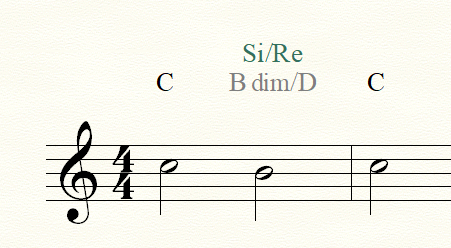
I am working on scores in which I use chords in Italian mode (a modern solfeggio Do, Re, Mi, Fa, Sol, La, Si) and for this I select the alternative font MusicChordSpanish which allows me to have the Chords in style I need, it's an Arial style modified font.
The problem is that when I insert Bb/D (which translated must be Sib/Re) the characters are superimposed as in the screenshot that I attach.
Are there any updated versions of the font?
For several years I have been asking the team to include this default chord style in Finale's choices. The software provides the Solfeggio mode but it is unusual and not the one used by many users who needs the modern solfeggio chords used in many scores and dedicated song books.
The modern use is Do, Re, Mi, Fa, Sol (not So), La, Si (not Ti).
I want submit you that Dorico and Sibelius allows this in the preferences.
If Finale include this mode in default choices we could choose also different fonts than Arial or TimesNewRoman or Jazz as offered for English language.
In the meantime, I submit this help request for corrupted font and renew the style request.
In the meantime, you should be able to create the chord (for playback) and hide it. Then use an expression in the appropriate font to show what you want. (But still, contact Finale Support to show them what you need.)
You mention the font MusicChordsSpanish.
You have not tried the FC font?
At least for me the characters are not superimposed when I use the FC font.
I confirm what Peter said. No collision with the FC font (FC = French Chords). The only difference is that Ré has an accent.
If you find a font editor, you might fix that and change Ré into Re.
In the meantime I made a new post requesting a Modern Solfeggio style to be inserted in the predefined Finale ones so that everything can be more immediate and above all to be able to choose fonts that offer a different view from a common Arial or Times, so as possible for international symbols style.